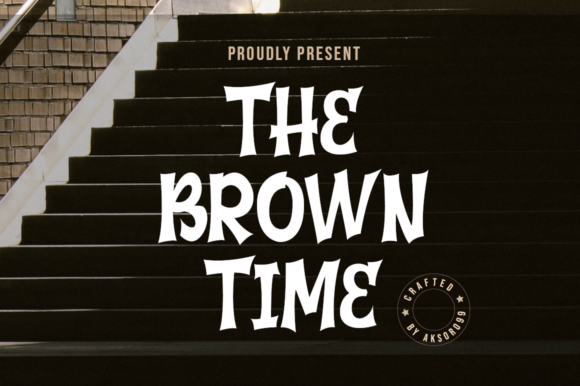
The Brown Time Font
The Brown Time is a cool, bold and incredibly adaptable display font. It looks great on branding, labels, logos and apparel. Add it confidently to your favorite creations and let yourself be amazed by the outcome generated.